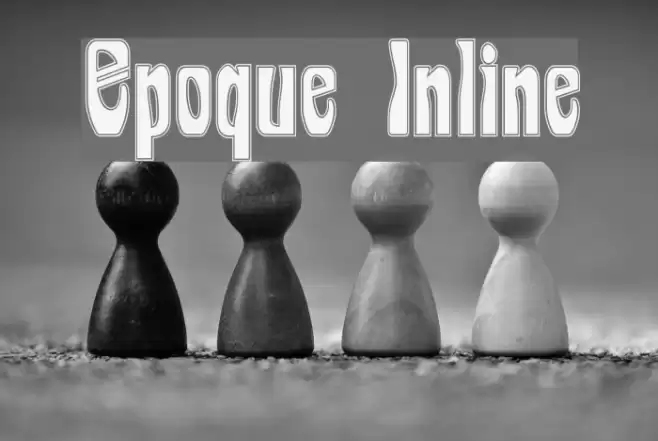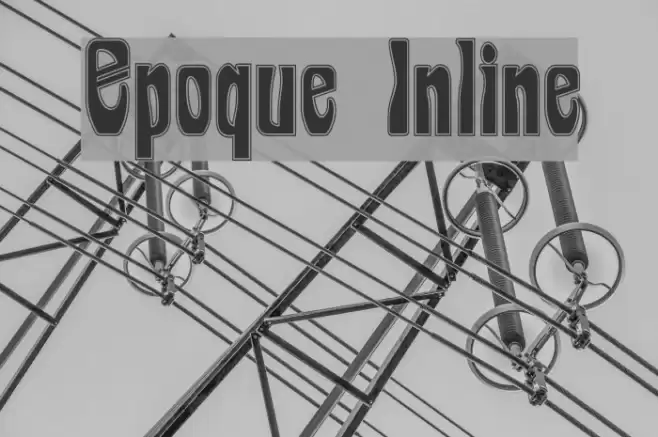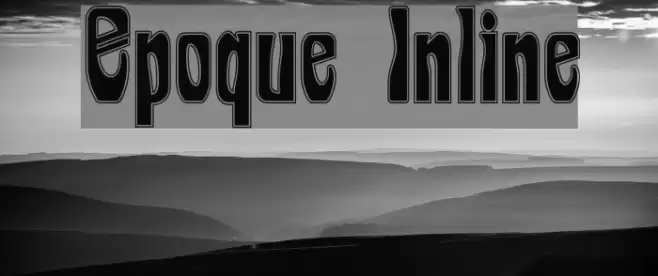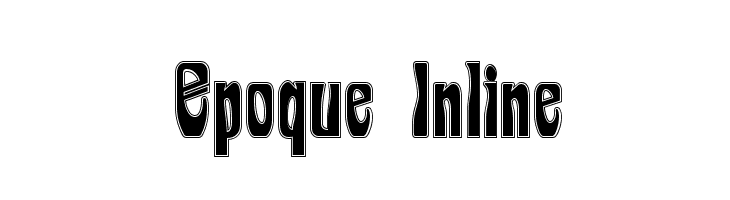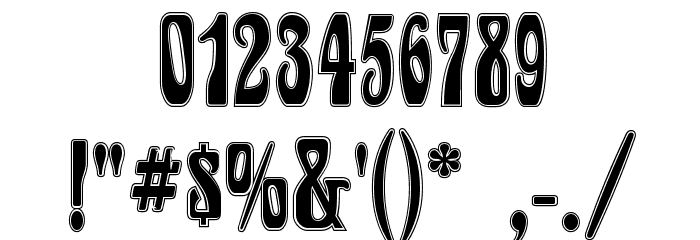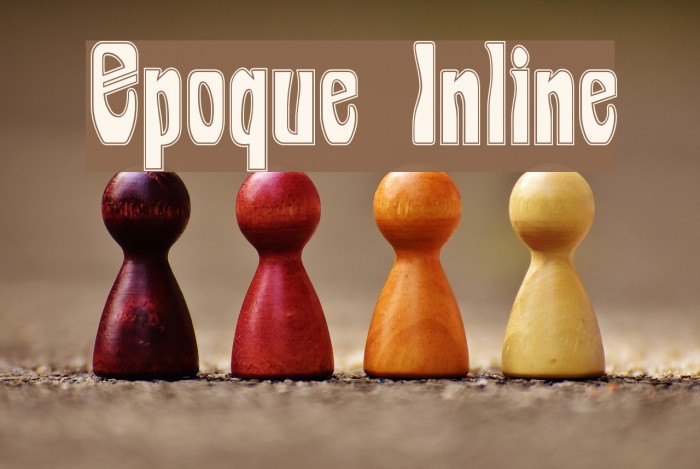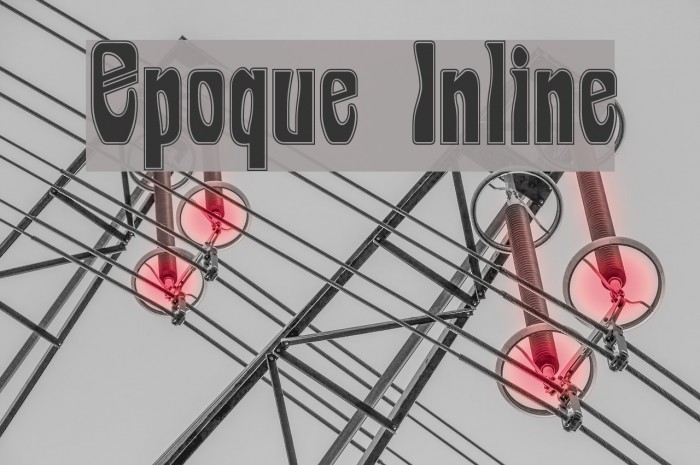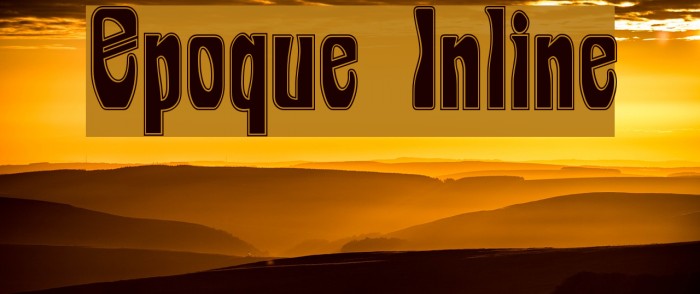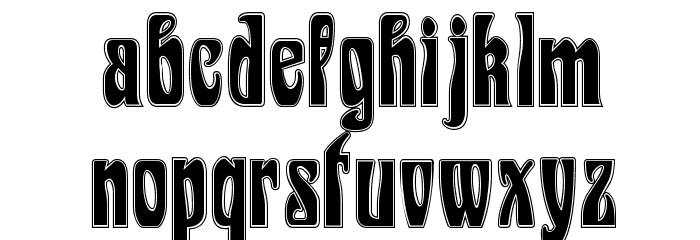
Epoque Inline Font
Epoque Inline Description
This font features a bold, decorative style with an inline design that gives it a unique, eye-catching appearance. The uppercase letters are particularly striking, with a strong presence and a playful, artistic flair. The lowercase letters maintain the same decorative quality, ensuring consistency throughout the typeface. The numbers and special characters are designed to match the overall aesthetic, making this font versatile for various creative applications. Its boldness and intricate detailing make it suitable for projects that require a standout, artistic touch.
A bold, decorative font with an inline design and artistic flair from Uncategorized fonts.
- Proposed Projects: Ideal for posters, branding, album covers, and any project requiring a bold, artistic statement.